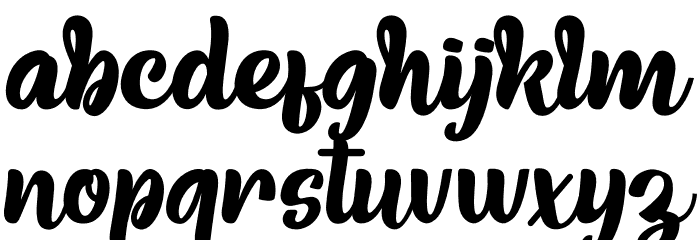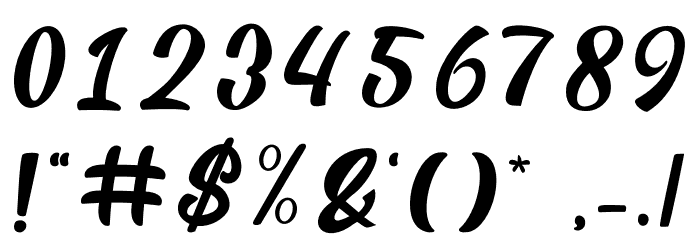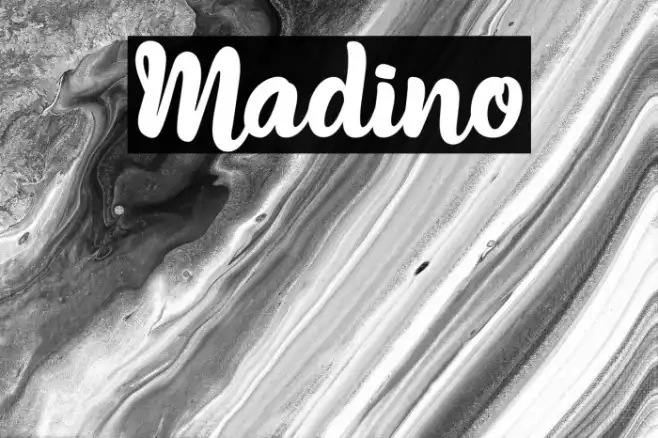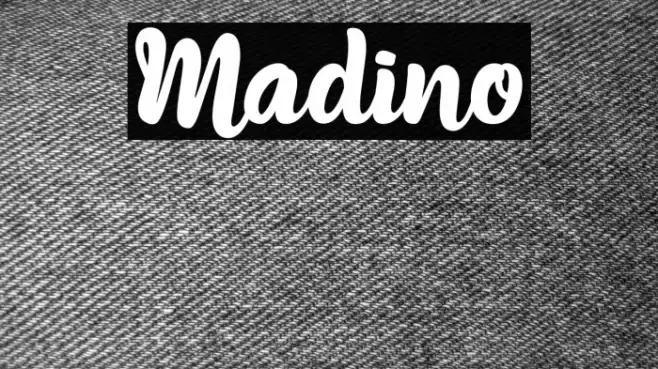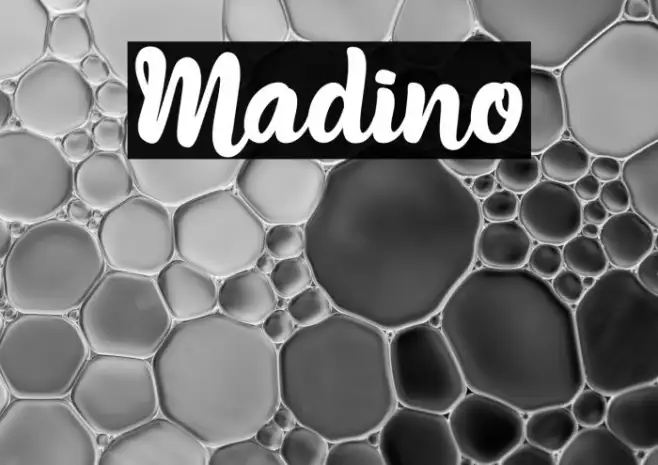
Madino Font
This font features a bold and expressive script style, characterized by its fluid and dynamic strokes. The uppercase letters are slightly slanted, giving a sense of movement and elegance. The lowercase letters maintain a consistent flow, enhancing readability while preserving the artistic flair. The numbers and special characters are designed to match the overall aesthetic, with rounded edges and a playful touch. The font's thick strokes and smooth curves make it stand out, ideal for creating eye-catching designs. Its unique style is perfect for projects that require a personal and creative touch.
A bold and expressive script font with fluid, dynamic strokes.
- Proposed Projects: Ideal for branding, invitations, greeting cards, and creative projects requiring a personal touch.
- Use Case: Logos, Headlines, Invitations